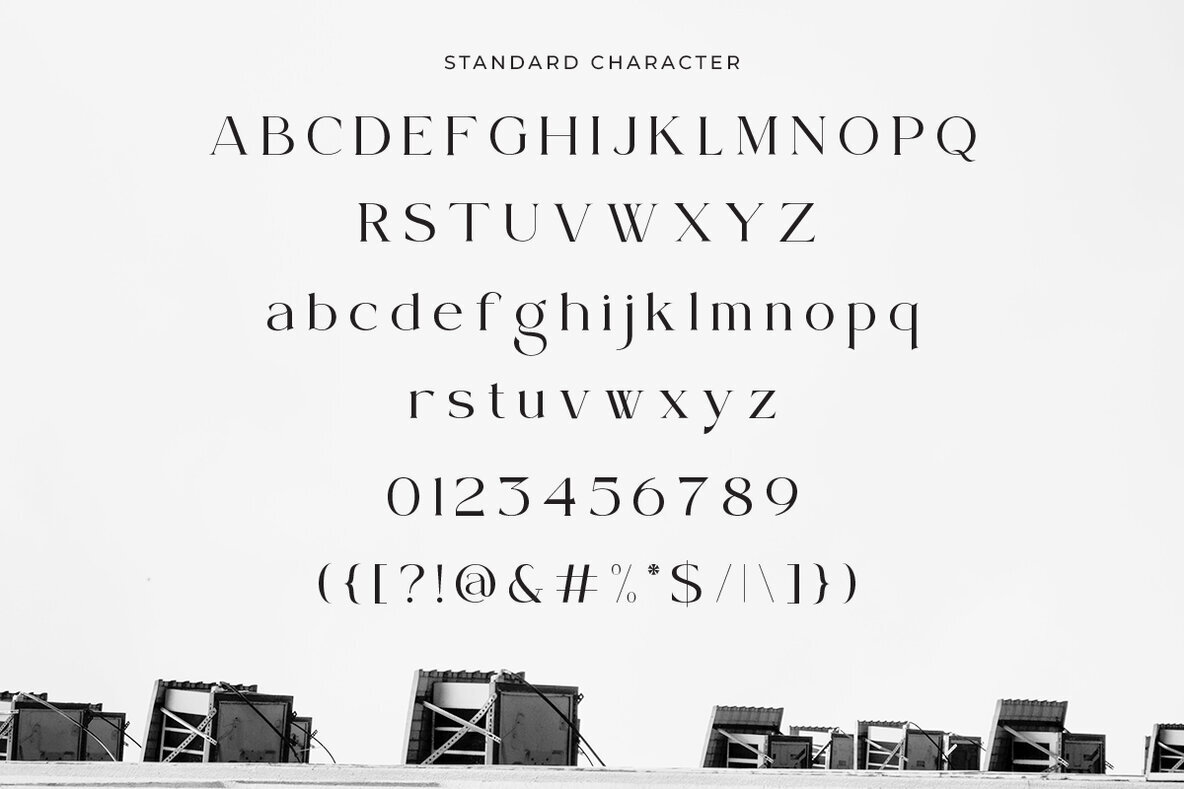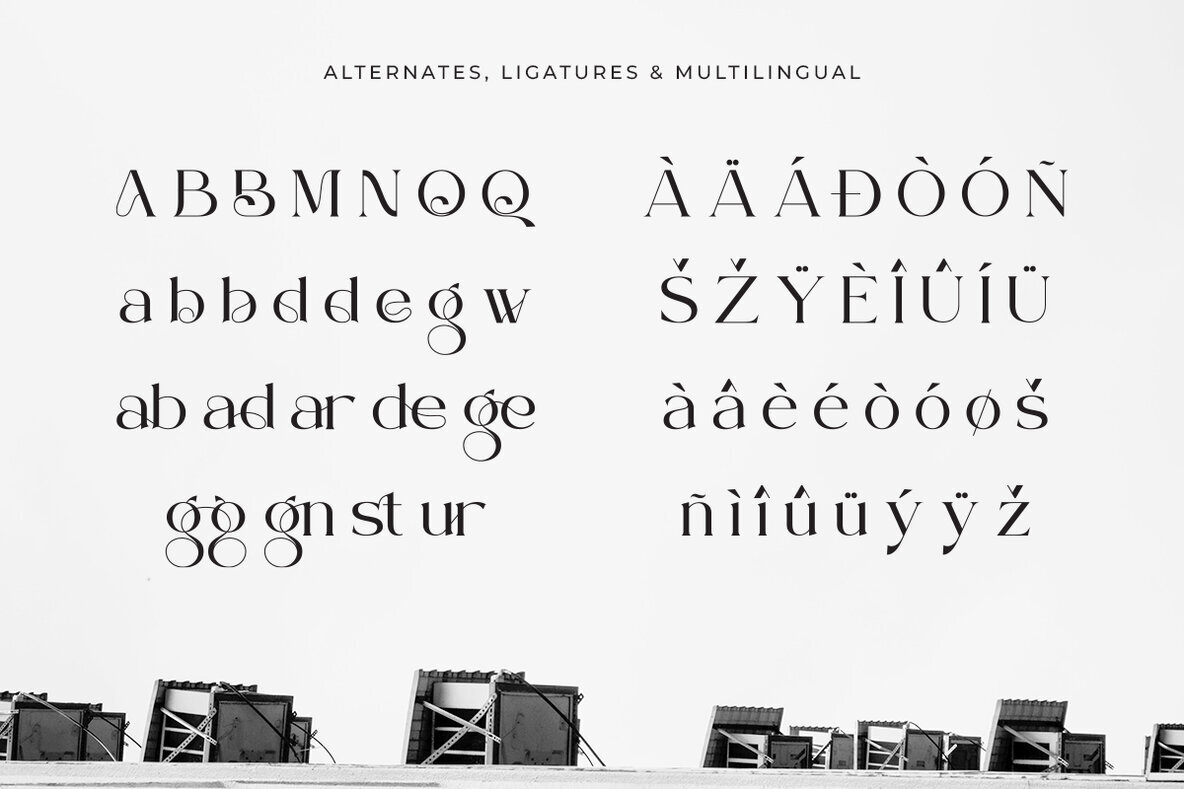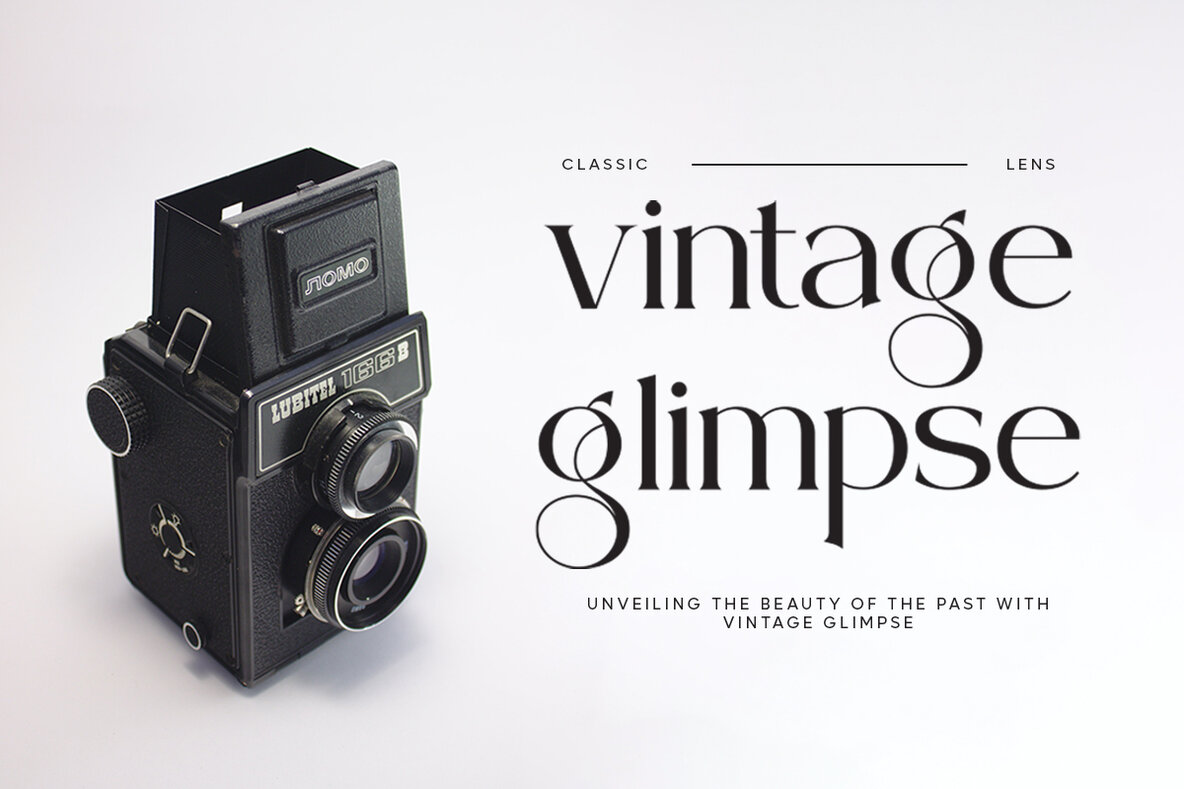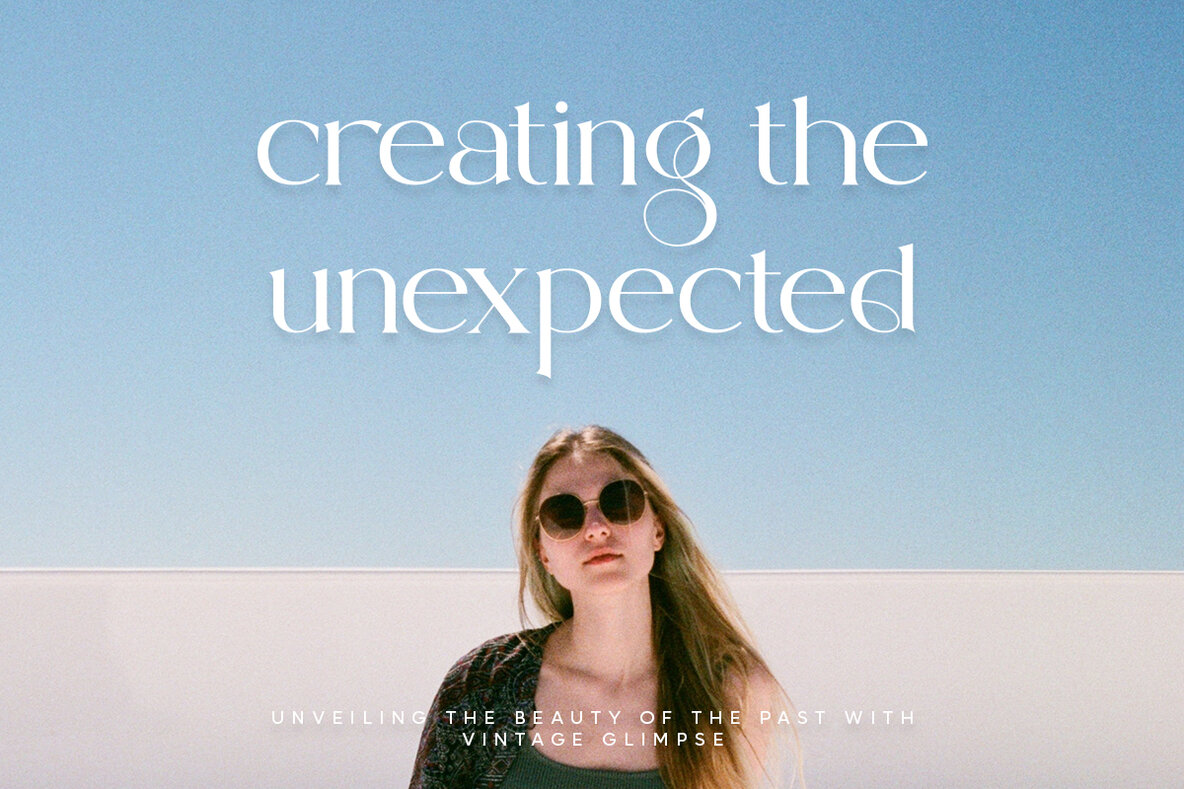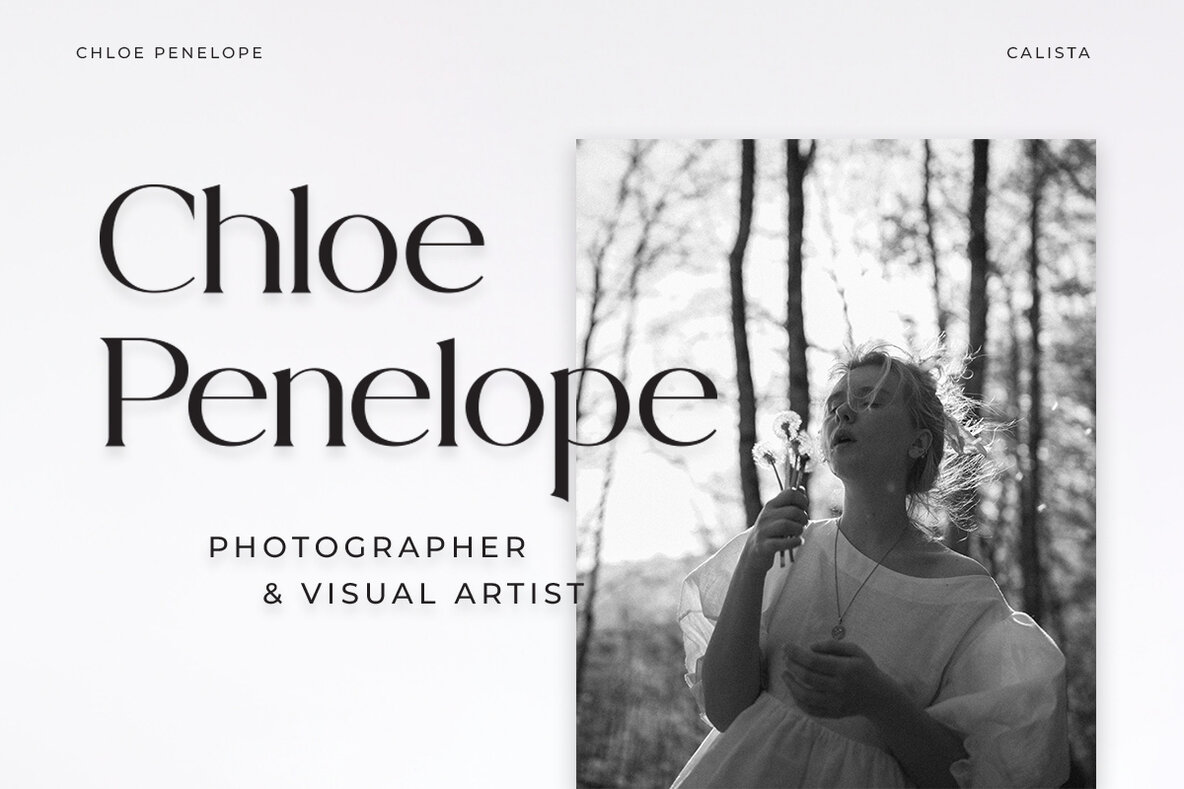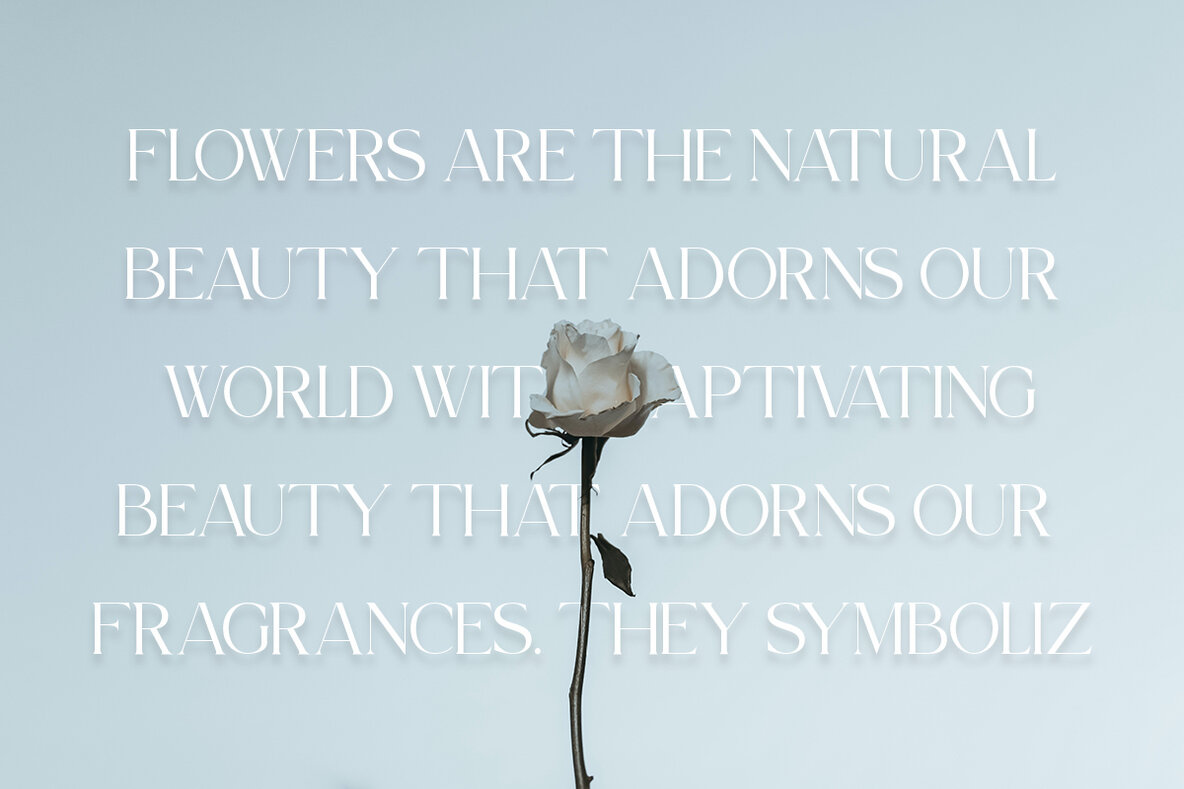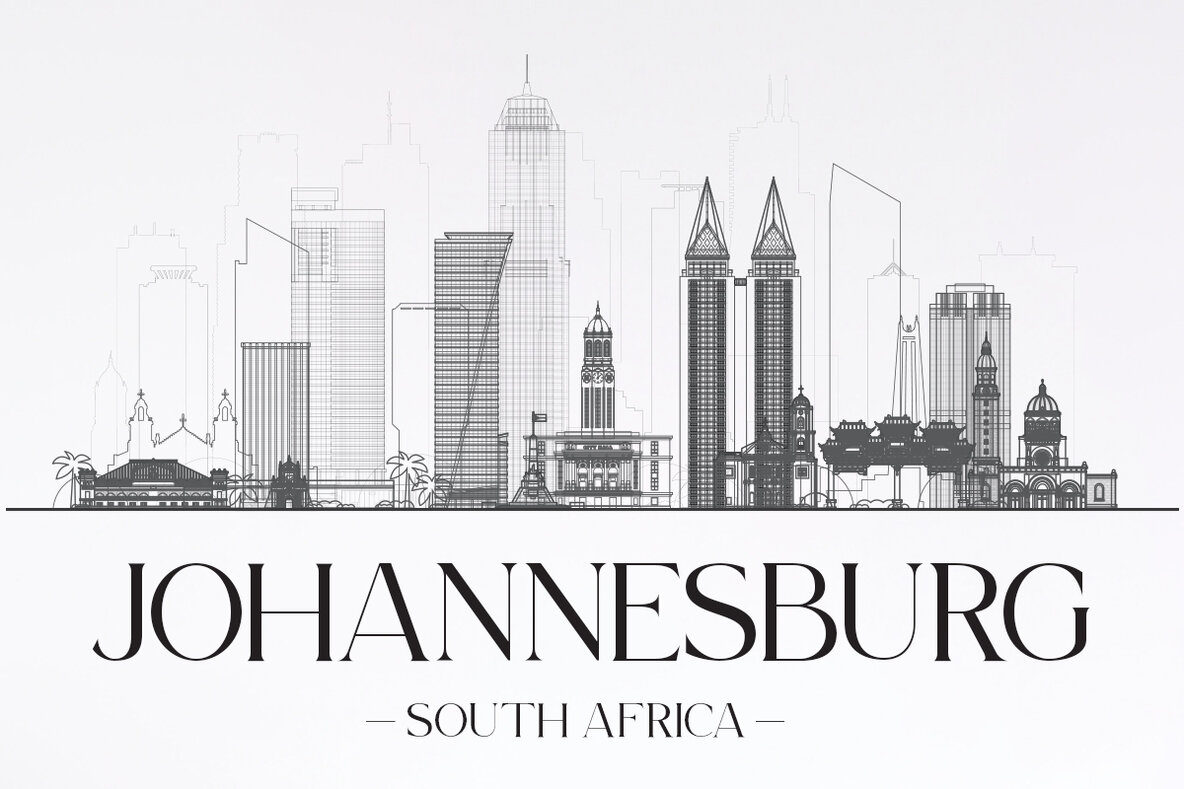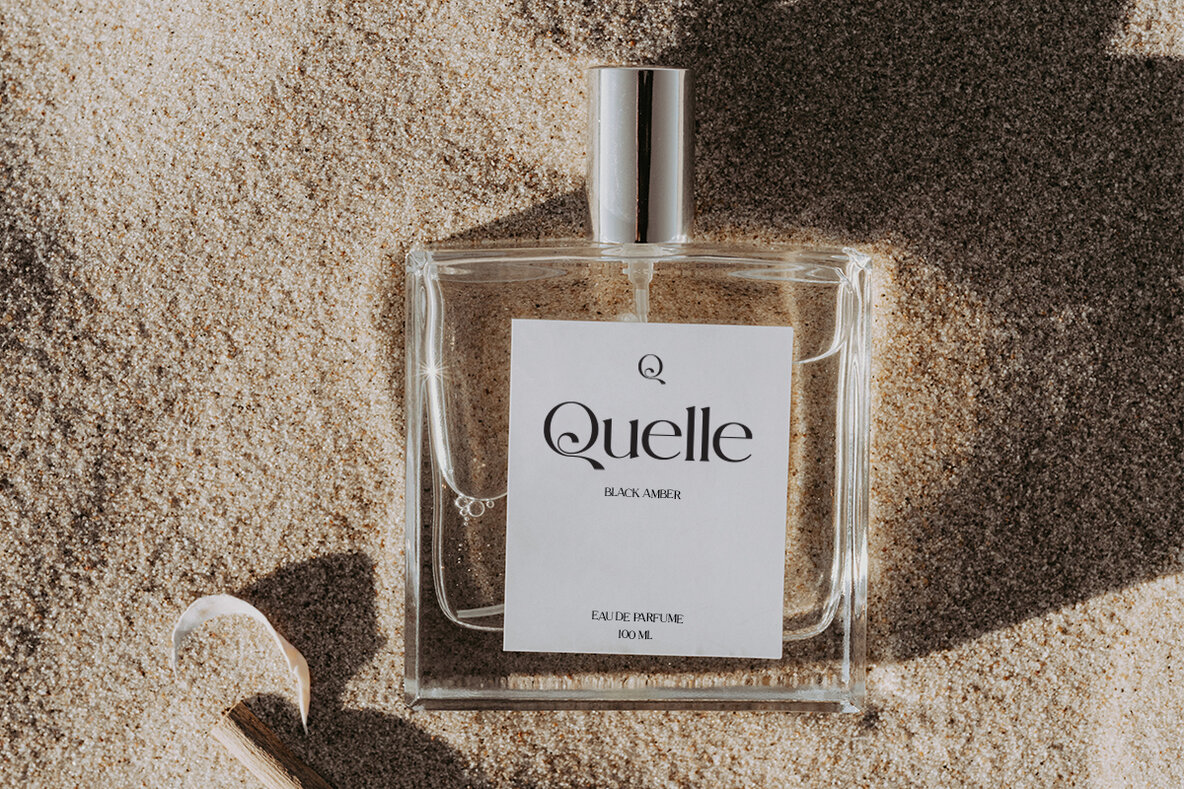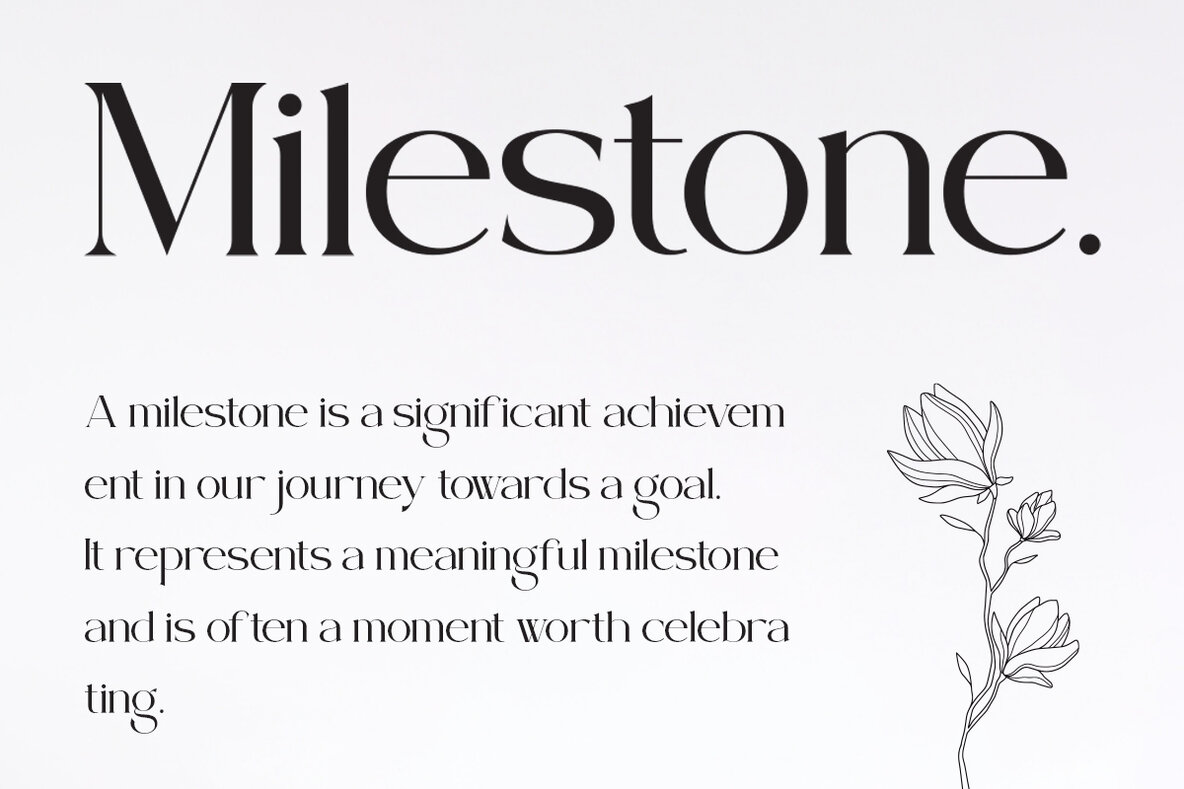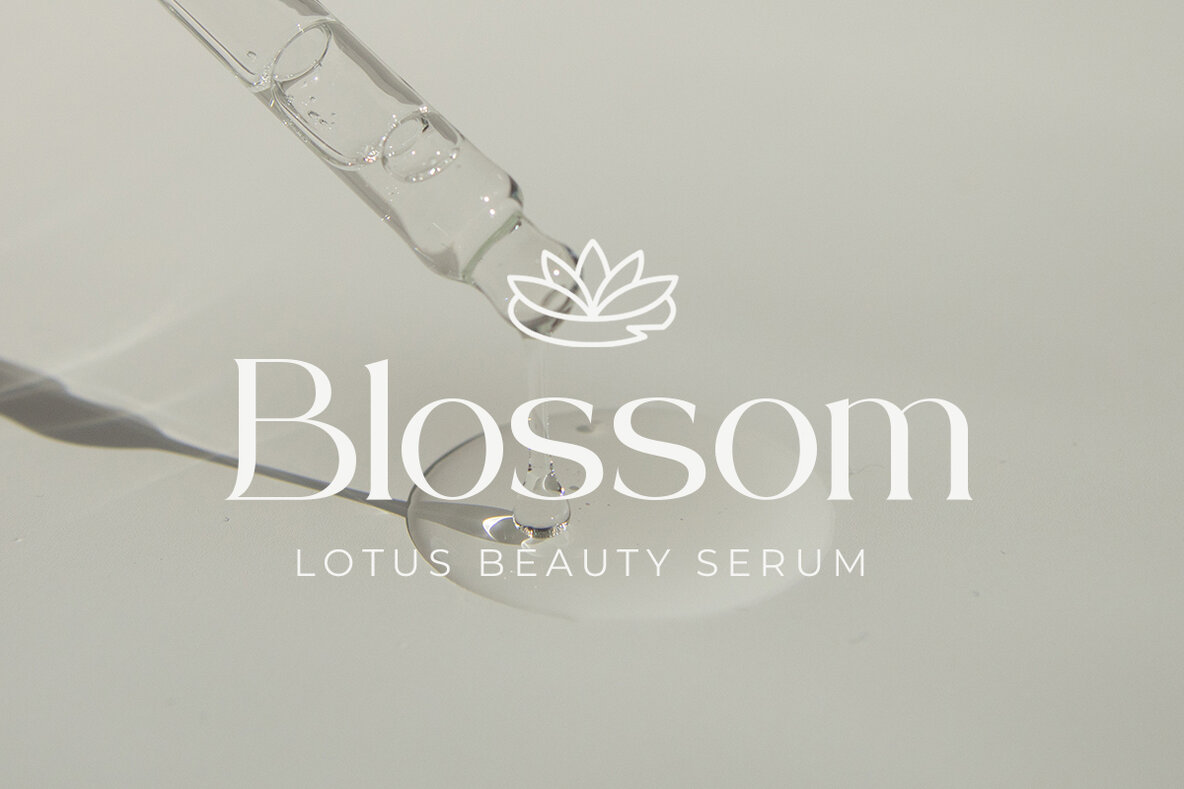
Adorable Moggie Font
Adorable Moggie Regular
The Adorable Moggie Display Font, designed by the creative genius of Ragamkata, is not your everyday typeface. Striking a delicate balance between classic elegance and modern creativity, this font is crafted for those who seek to stand out in the exciting world of graphic design and marketing. The large, bold lettering, punctuated by unique decorative details on each letter, creates an experience on the page that is nothing short of captivating. This font isn't just about style, it's a tool that speaks for your brand. It's perfect for anyone looking to mark their work with a distinctive aesthetic that powerfully communicates their branding message. Whether it's for logos, print design, website headers, or digital marketing campaigns, the Adorable Moggie Display Font adds a level of sophistication that calls for attention. It's time to let your design project resonate with your audience, capturing the spirit of today's design trends yet remaining timeless in its appeal.Unleash Creativity with Adorable Moggie Display Font